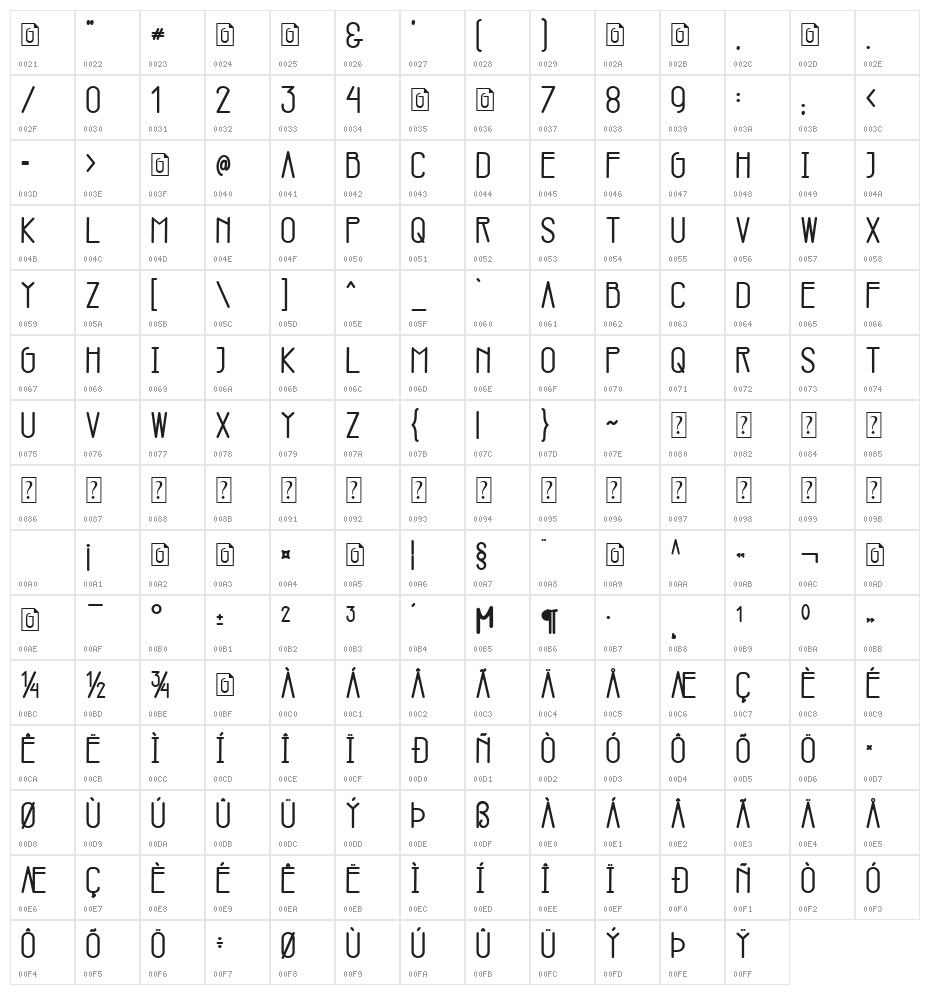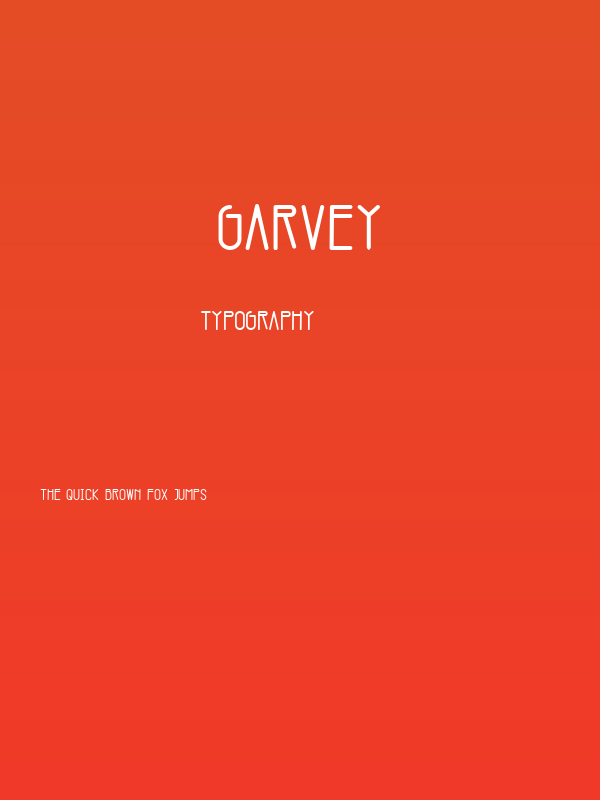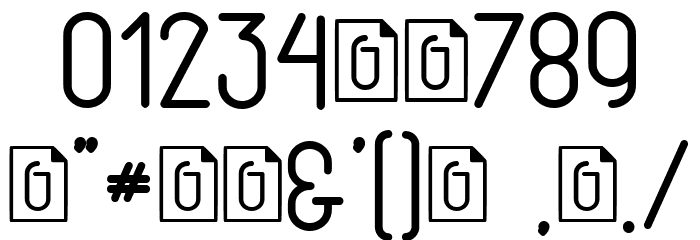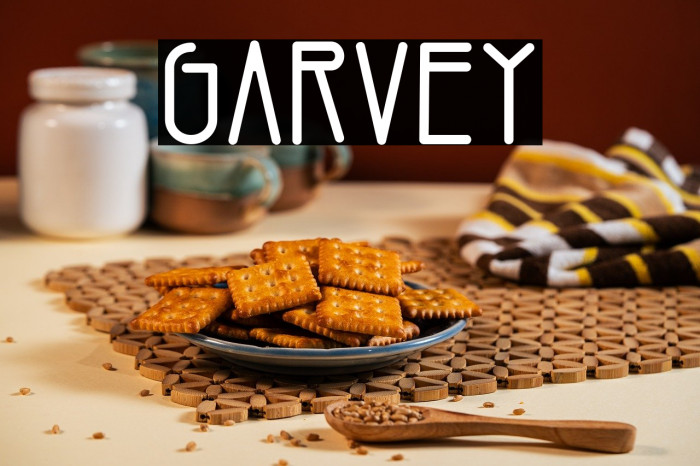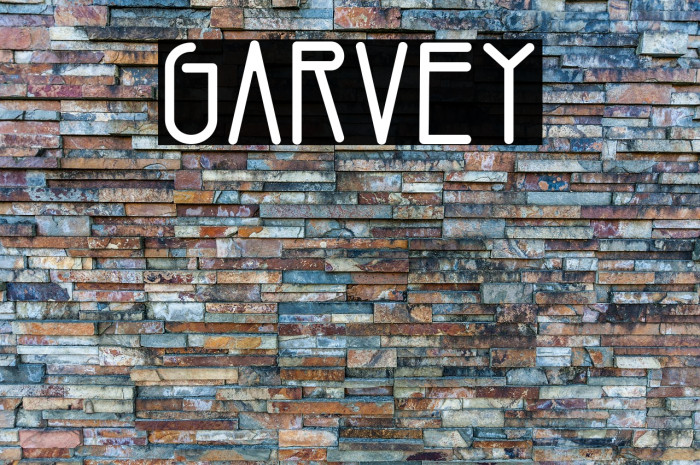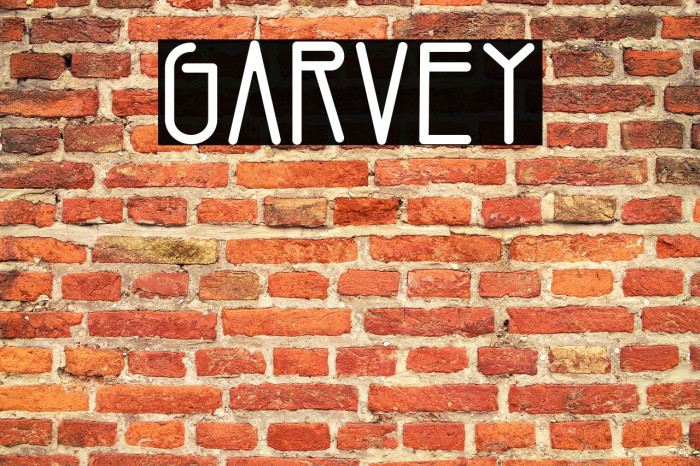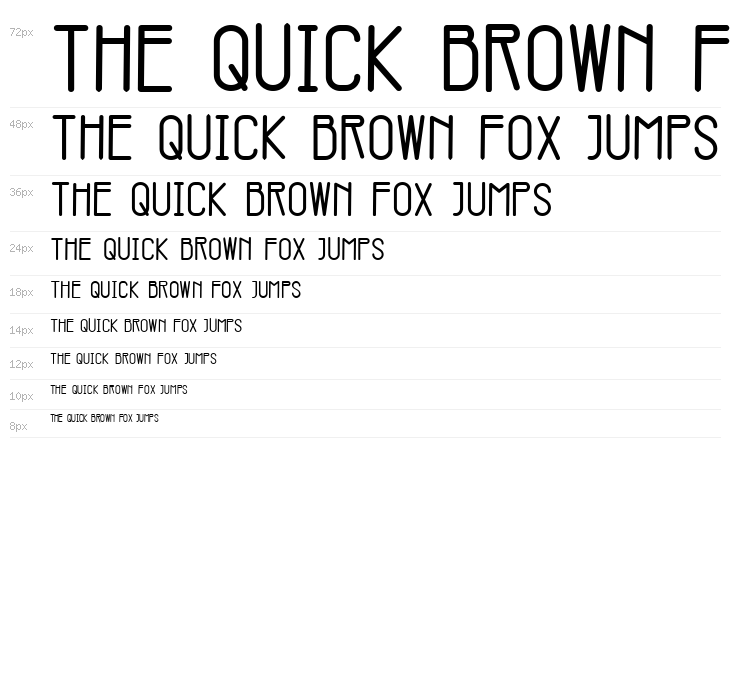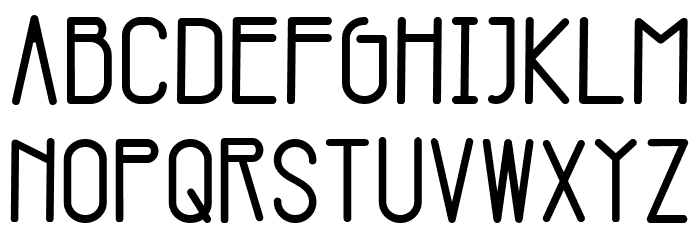
Garvey Font
Garvey Description
This font features a modern, geometric design with clean lines and a slightly condensed appearance. The characters are uniform in width, giving it a monospaced feel, although it is not strictly monospaced. The uppercase letters are tall and narrow, with a consistent stroke width that provides a sleek and contemporary look. The lowercase letters maintain the same geometric style, ensuring readability and a cohesive appearance. The numerals are distinct and align well with the overall style, while the special characters are designed to match the font's clean and modern aesthetic.